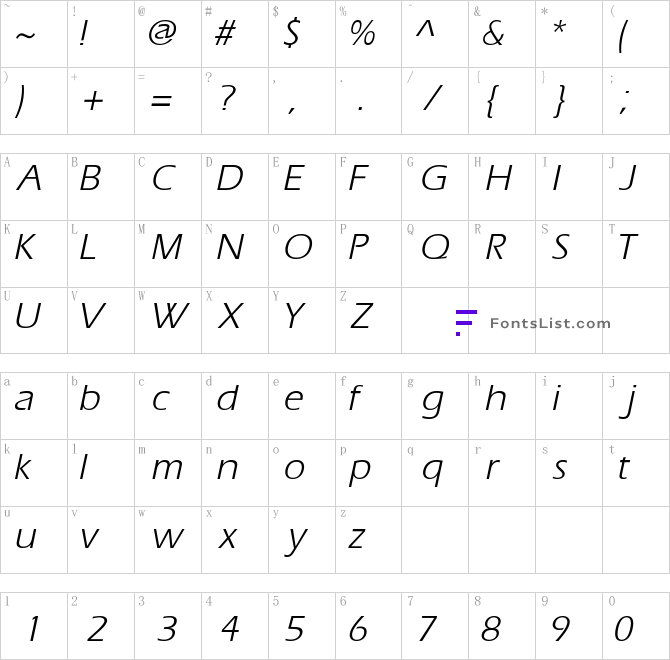
- Font Name:AquilineBook
- Full Name:AquilineBook Italic
AquilineBook-Italic1-.ttf is a very beautiful artistic font, AquilineBook-Italic1-.ttf is widely used in the design and printing of various books and pictures,AquilineBook-Italic1-.ttf has a strong visual impact,AquilineBook-Italic1-.ttf is a commonly used font in newspapers, magazines and books, and is used in posters, e-commerce Poster design, store design, logo design, font design and other fields.AquilineBook-Italic1-.